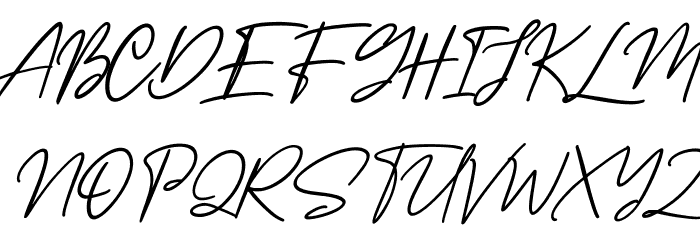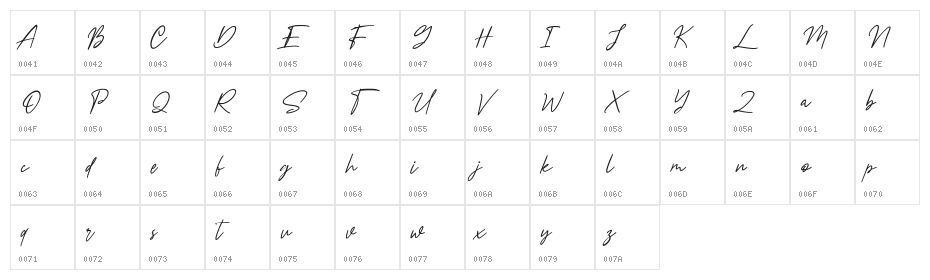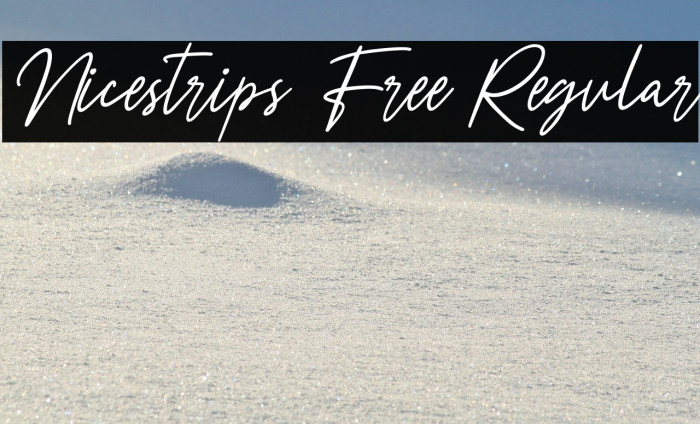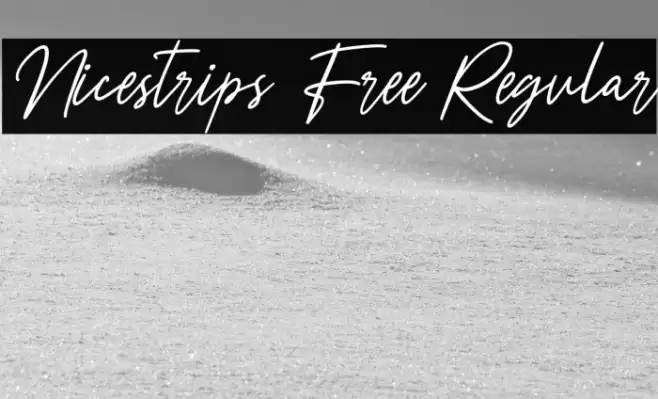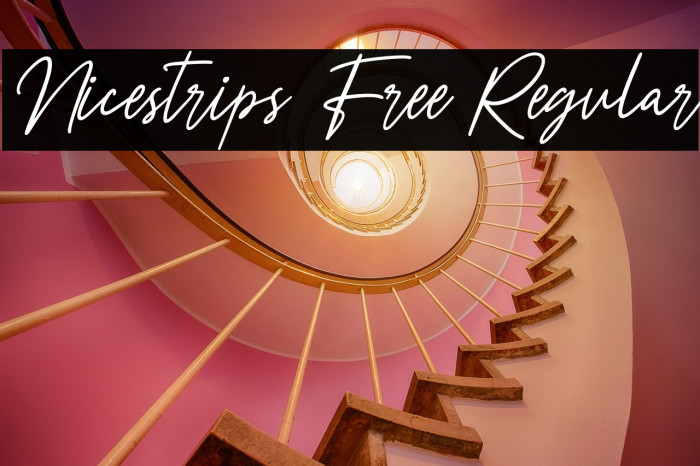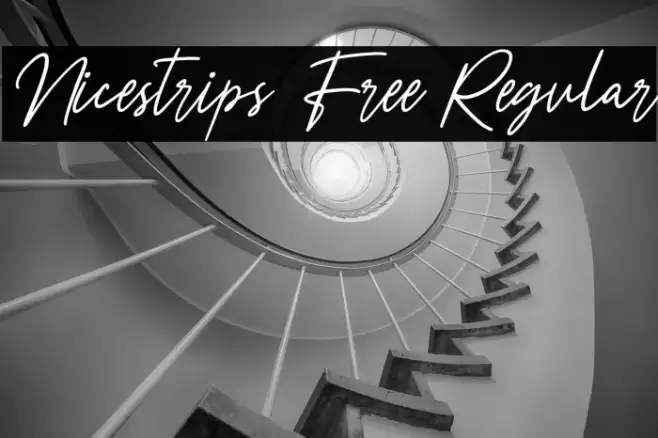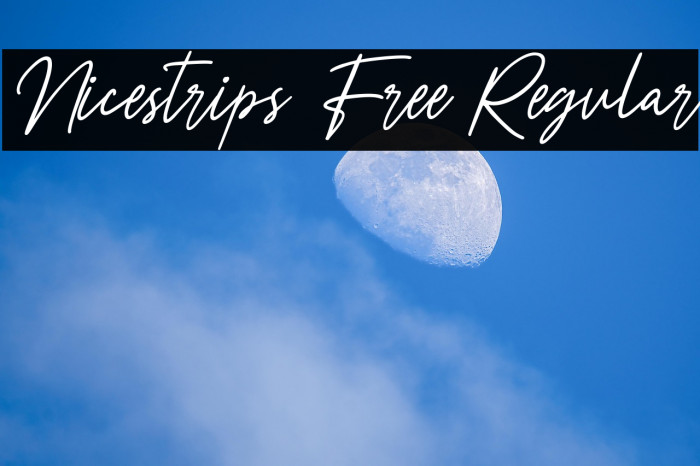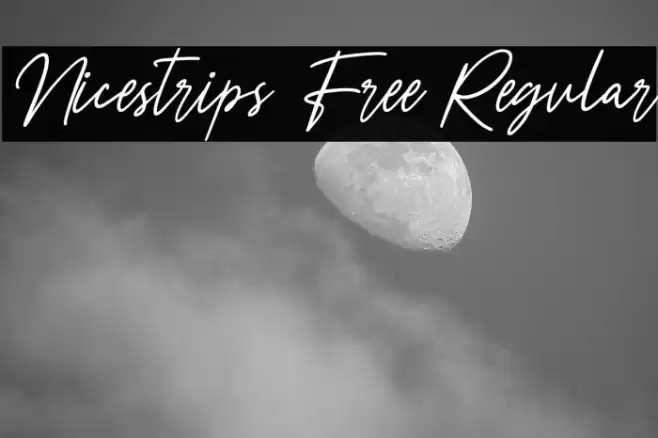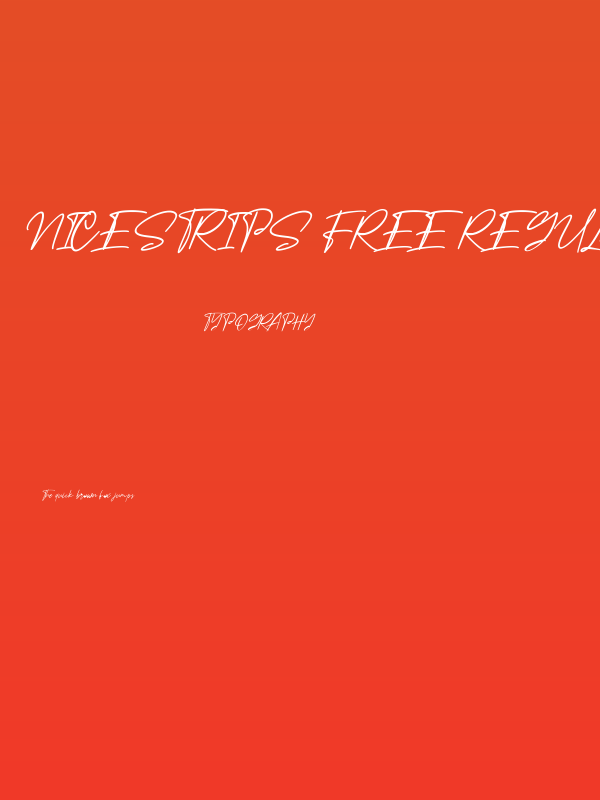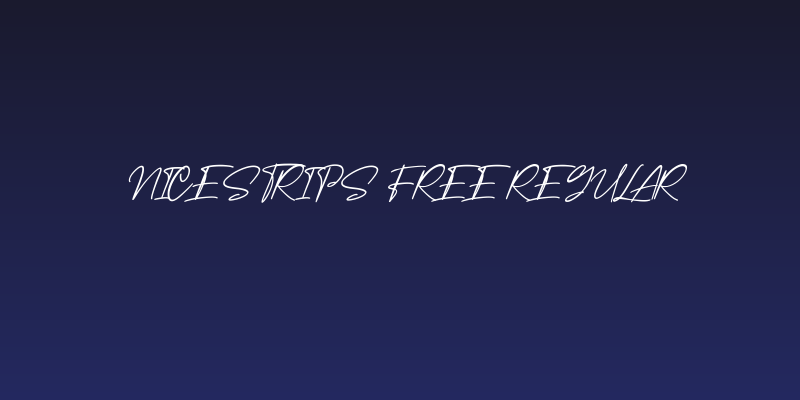
Nicestrips Free Regular Font
Nicestrips Free Regular Description
This font features an elegant and flowing script style, characterized by its cursive, handwritten appearance. The letters are connected in a fluid manner, giving it a natural and organic feel. The strokes are smooth and consistent, with a slight slant that adds to its dynamic look. The uppercase letters are bold and prominent, while the lowercase letters maintain a delicate balance, enhancing readability. The font exhibits a medium contrast between thick and thin strokes, contributing to its graceful aesthetic. It is well-suited for projects that require a personal touch or a sophisticated flair.
| Overall Style | Elegant |
| Use Case | Logos, Invitations, Branding |
| Proposed Projects | Ideal for wedding invitations, greeting cards, branding, and elegant packaging designs. |